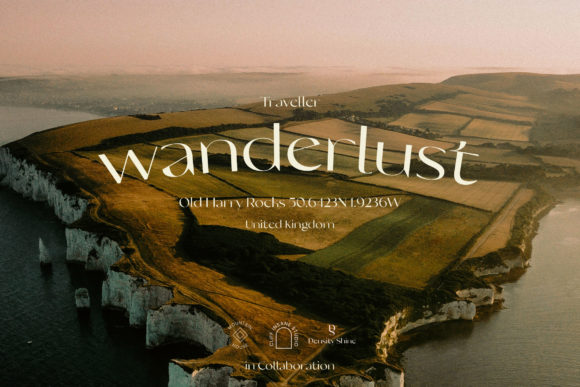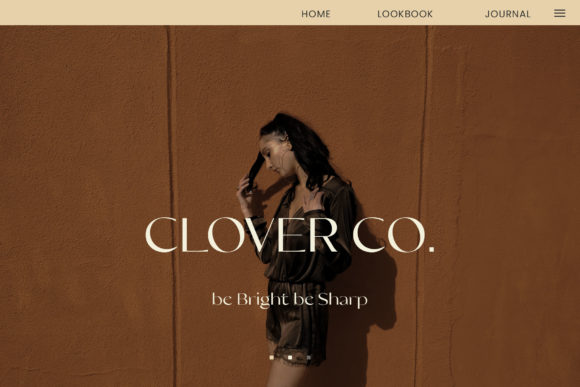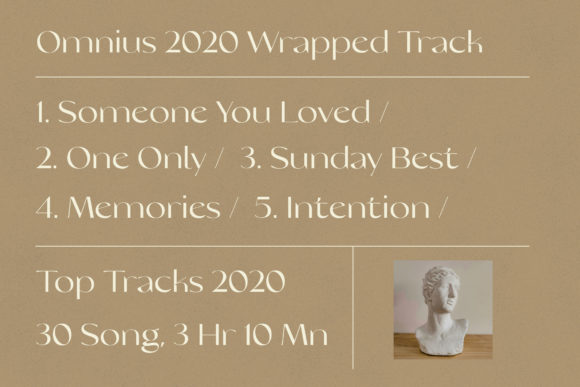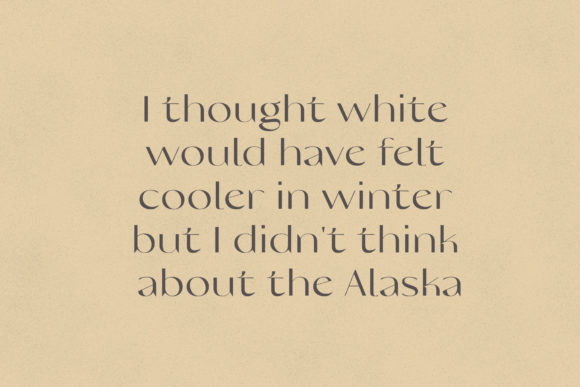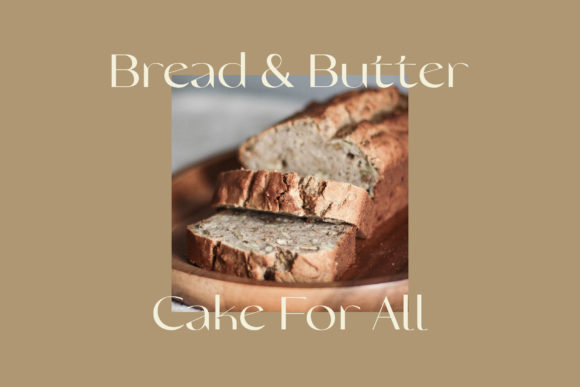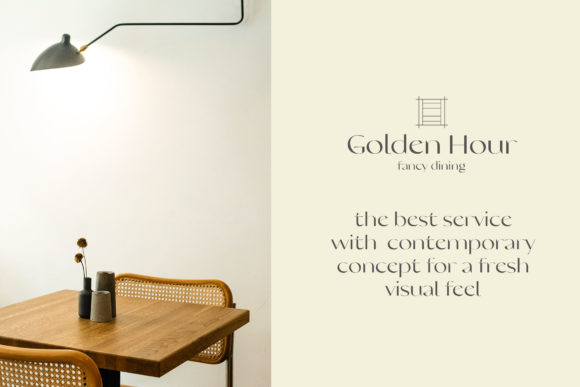
Introduction to Costigue Font Font
Fonts play a crucial role in design, and the Costigue Font font is a typeface that brings both character and versatility to any project. Whether you’re working on a branding project, a website, or a print design, the Costigue Font font offers a unique style that can elevate your work.
Costigue is a modern serif font.
Key Features of Costigue Font Font
Why Choose Costigue Font Font?
The Costigue Font font is more than just a typeface – it’s a design tool that helps you communicate your message with style and clarity. Its unique character set and versatile design make it suitable for a wide range of applications, from elegant invitations to bold headlines.
With its carefully crafted letterforms and balanced proportions, the Costigue Font font ensures readability and visual appeal across all mediums.
What makes Costigue Font font special?
The Costigue Font font stands out with its unique design, exceptional readability, and versatility across various design applications.